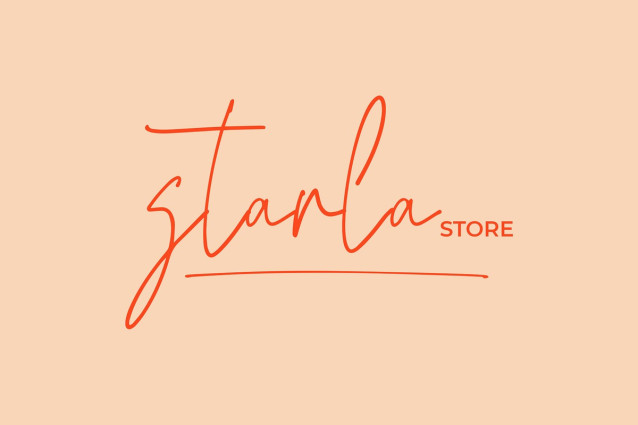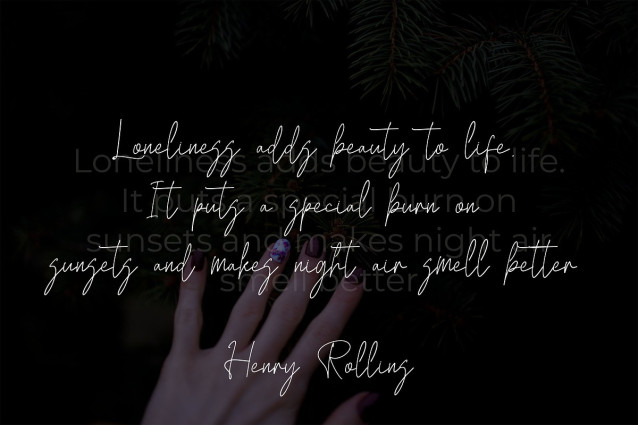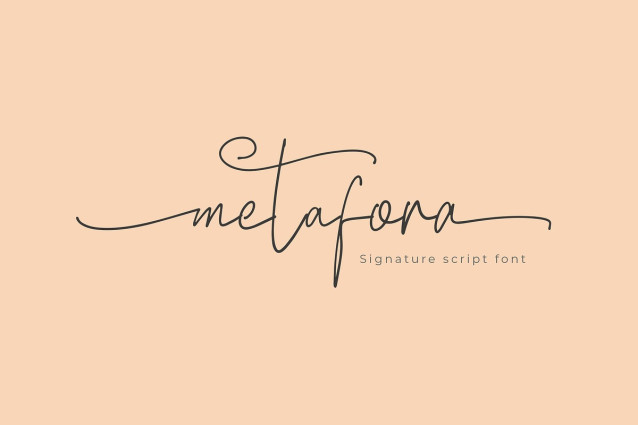
Metafora Signature Font
Metafora Signature Font is an elegant signature script font featuring a refined monoline style. With its unique character shapes, this font adds a sophisticated touch to your designs, making it perfect for branding, invitations, packaging, and more. Enhance your creative projects with Metafora’s distinctive charm.